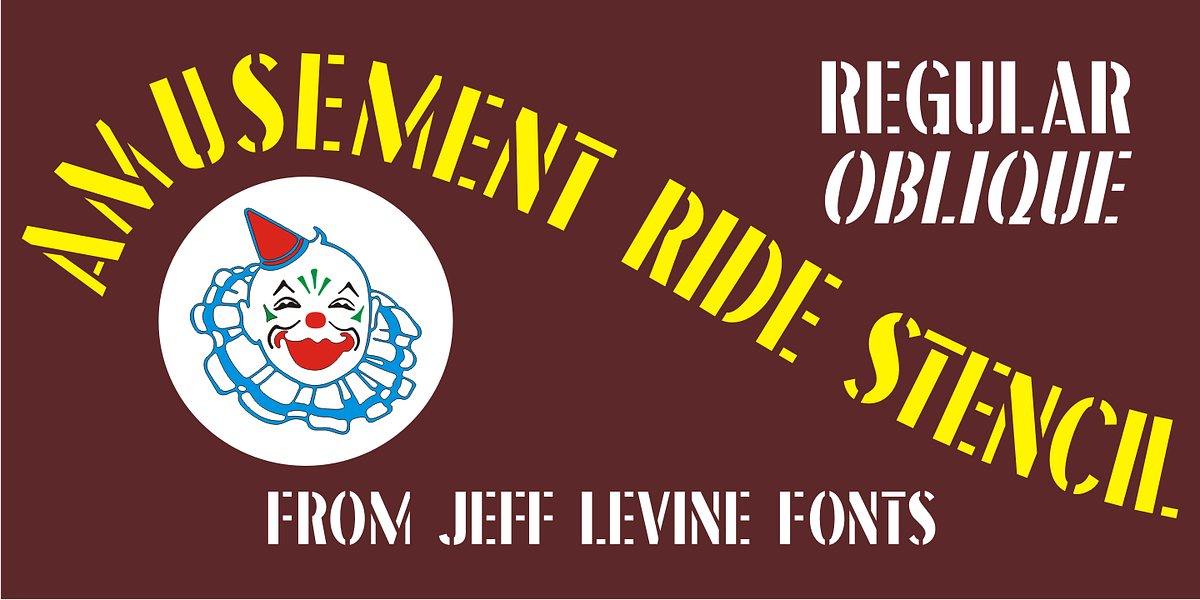
Amusement Ride Stencil JNL
Amusement Ride Stencil JNL is based on a hand-cut paper stencil advising the riders to "Hold Onto Your Hats , Don't Stand Up , Let's Go Again!"